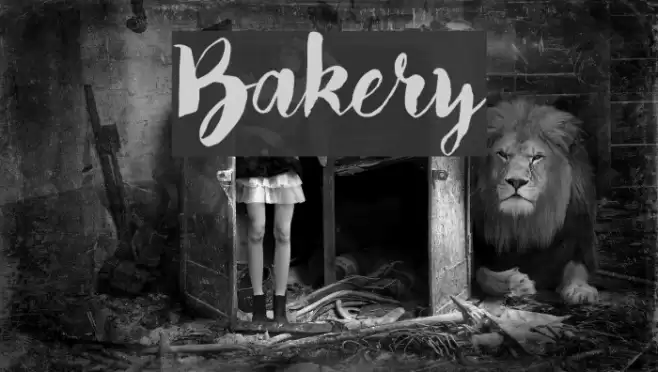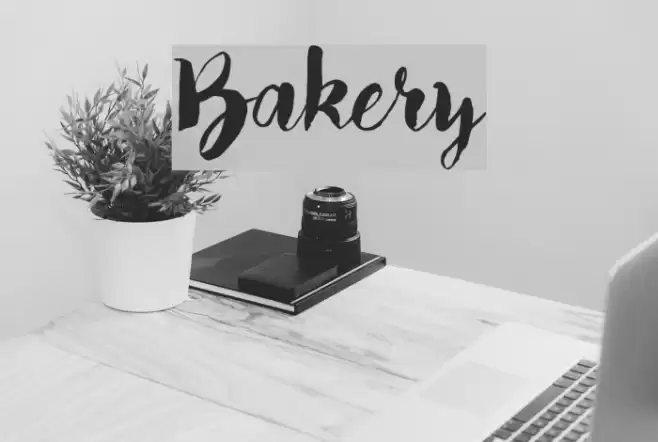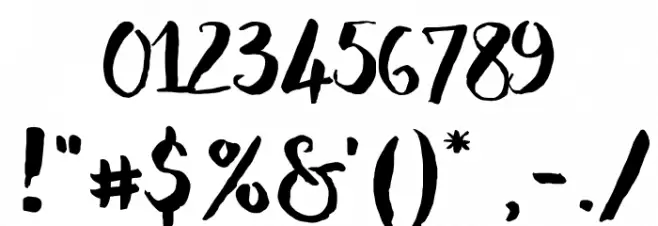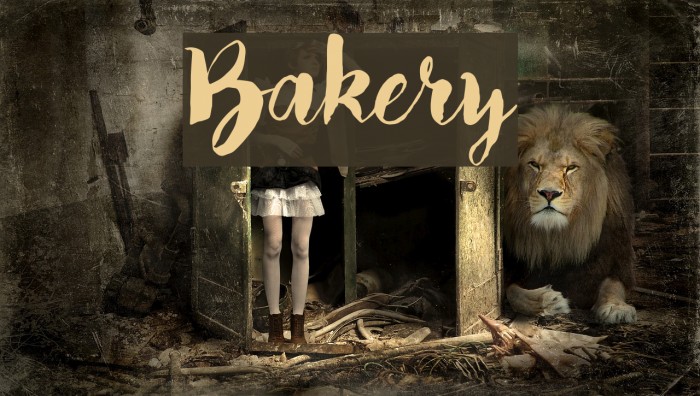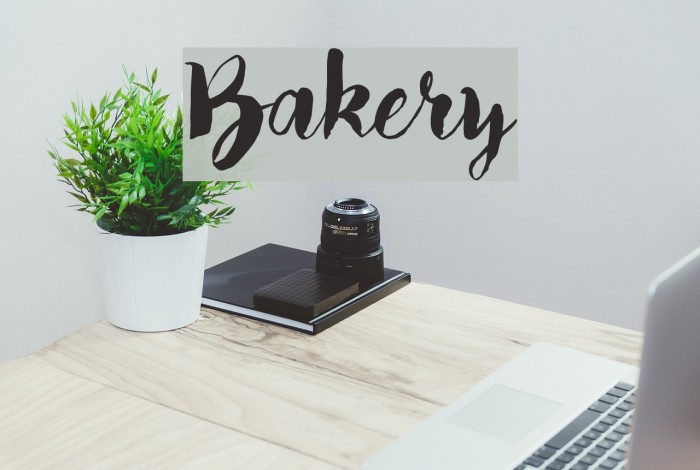
Bakery Font
Bakery Description
This font exhibits a lively and dynamic handwritten style, characterized by its fluid strokes and expressive curves. The uppercase letters are bold and sweeping, with a sense of movement that adds a touch of elegance and flair. The lowercase letters maintain a consistent flow, complementing the uppercase with their graceful loops and connections. Numbers and special characters are crafted with the same attention to detail, ensuring a cohesive look across all elements. The overall appearance is both artistic and approachable, making it suitable for creative and informal applications.
A dynamic and expressive handwritten font with fluid strokes from Uncategorized fonts.
- Proposed Projects: Ideal for branding projects, invitations, greeting cards, and artistic posters.
- Use Case: Logos, Headlines, Invitations